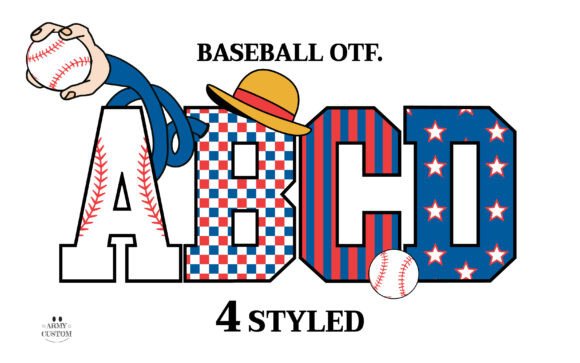
Introducing the Baseball Bundle Font: A Cute and Colorful Addition to Your Designs
Are you looking for a font that embodies playfulness and authenticity? Look no further than the Baseball Bundle Font, specifically the Baseball Army font. This chunky lettered font is perfect for any children’s activity or school project, and it’s sure to make your designs come alive!
What is the Baseball Army Font?
The Baseball Army font is a cute and colorful font that is designed to bring a sense of fun and playfulness to your designs. Its chunky lettering and bold style make it perfect for creating eye-catching titles, headings, and text that will grab the attention of your audience.
Whether you’re creating materials for a children’s party, a school project, or just want to add some personality to your designs, the Baseball Army font is the perfect choice. Its authentic and playful style will add a touch of charm and creativity to your work.
Key Features of the Baseball Bundle Font
- Cute and Colorful: The Baseball Army font is a vibrant and colorful addition to any design. Its bold and chunky lettering is sure to make your text stand out.
- Playful and Authentic: This font embodies the spirit of playfulness and authenticity, making it perfect for children’s activities and school projects.
- Chunky Lettering: The chunky lettering of the Baseball Army font makes it easy to read and adds a touch of whimsy to your designs.
Tips and Inspiration for Using the Baseball Bundle Font
Here are a few tips and inspiration ideas for using the Baseball Bundle Font:
- Children’s Party Materials: Use the Baseball Army font to create eye-catching titles and headings for children’s party materials, such as invitations, flyers, and posters.
- School Projects: Add a touch of personality to school projects with the Baseball Bundle Font. Its playful and authentic style makes it perfect for creating titles, headings, and text for school assignments.
- DIY Crafts: Use the Baseball Army font to add a personal touch to DIY crafts, such as signs, banners, and decorations.
The Baseball Bundle Font, specifically the Baseball Army font, is a cute and colorful addition to any design. Its playful and authentic style makes it perfect for children’s activities and school projects, and its chunky lettering adds a touch of whimsy to your work.